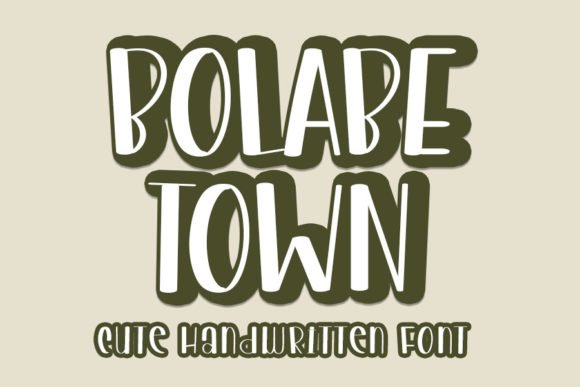
The Perfect Handwritten Touch for Your Designs
As a designer, there’s nothing quite like the thrill of bringing an idea to life. It’s that moment when a blank canvas transforms into a masterpiece, and your creativity shines through. For many of us, it starts with a single element – a font that sets the tone for our entire design.
That’s where the Bolabe Town Font comes in – a playful and smart-looking handwritten font that’s perfect for creating eye-catching logos, branding, and quotes. With its unique and beautiful touch, every letter is a work of art that will make your design come alive. Whether you’re working on a personal project or a client’s campaign, the Bolabe Town Font is a valuable addition to your design toolkit.
Bolabe Town Font Key Features
- Font Family: Bolabe Town Font is a unique, hand-drawn font family designed to evoke a sense of nostalgia and playfulness.
- Size: The font family includes 6 font weights, ranging from Light to Black, to cater to diverse design needs.
- Unique Characteristics: Bolabe Town Font features a distinctive, hand-crafted feel with subtle imperfections, adding a touch of personality to any design project.
Bolabe Town Font Review
Overall, I think Bolabe Town Font has some interesting elements, but it falls short in certain areas. Here’s what I like and dislike about it.
- ✨ Unique aesthetic: Bolabe Town Font has a distinct, hand-drawn feel that could work well for creative projects or brands looking to stand out.
- ✨ Customizable: The font is available in multiple weights and styles, which gives designers more flexibility when working with it.
- ⚠️ Limited legibility: At smaller font sizes, Bolabe Town Font can become difficult to read due to its irregular letterforms and varying stroke widths.
- ⚠️ Inconsistent spacing: The font’s kerning and letter spacing can be inconsistent, which may affect the overall look of text.
- ⚠️ Limited language support: Bolabe Town Font may not support all languages or scripts, which could be a limitation for designers working on multilingual projects.
Overall, Bolabe Town Font is an interesting addition to any designer’s toolkit, but it’s essential to weigh its unique aesthetic against its limitations. With some careful consideration and adjustments, it can be a valuable resource for the right projects.
Tips for Getting the Most Out of Bolabe Town Font
For best results, use Bolabe Town Font in bold or italic styles to add emphasis and visual interest. You can also experiment with different font sizes and colors to create a unique look.
Bolabe Town Font is ideal for use in creative projects, such as graphic design, branding, and digital art. It’s also great for use in headings and titles to add a touch of elegance and sophistication.